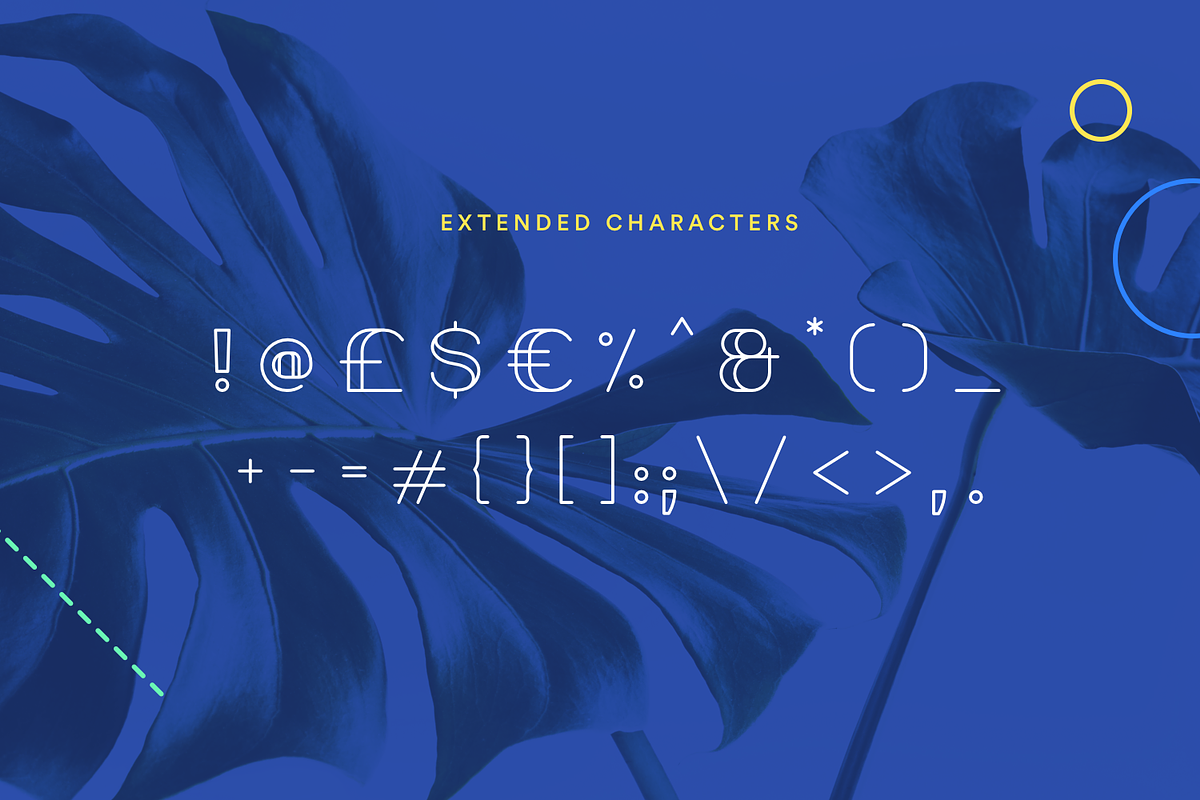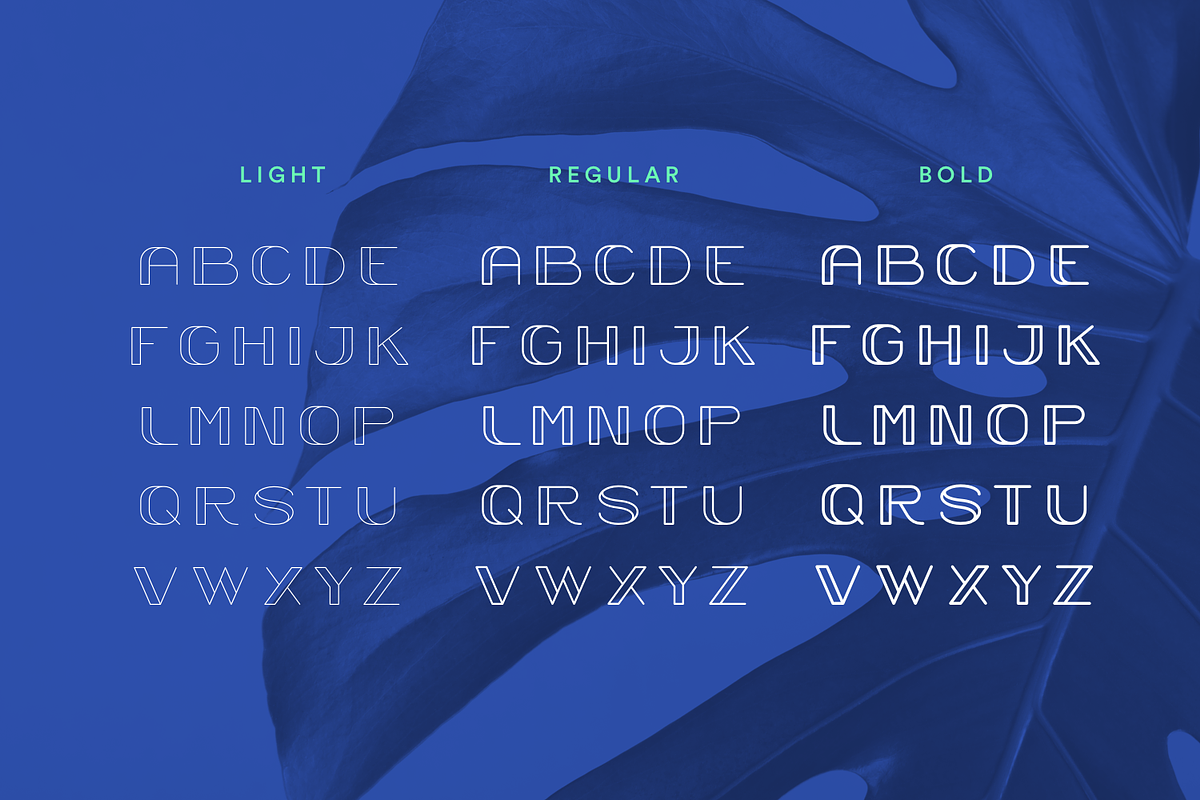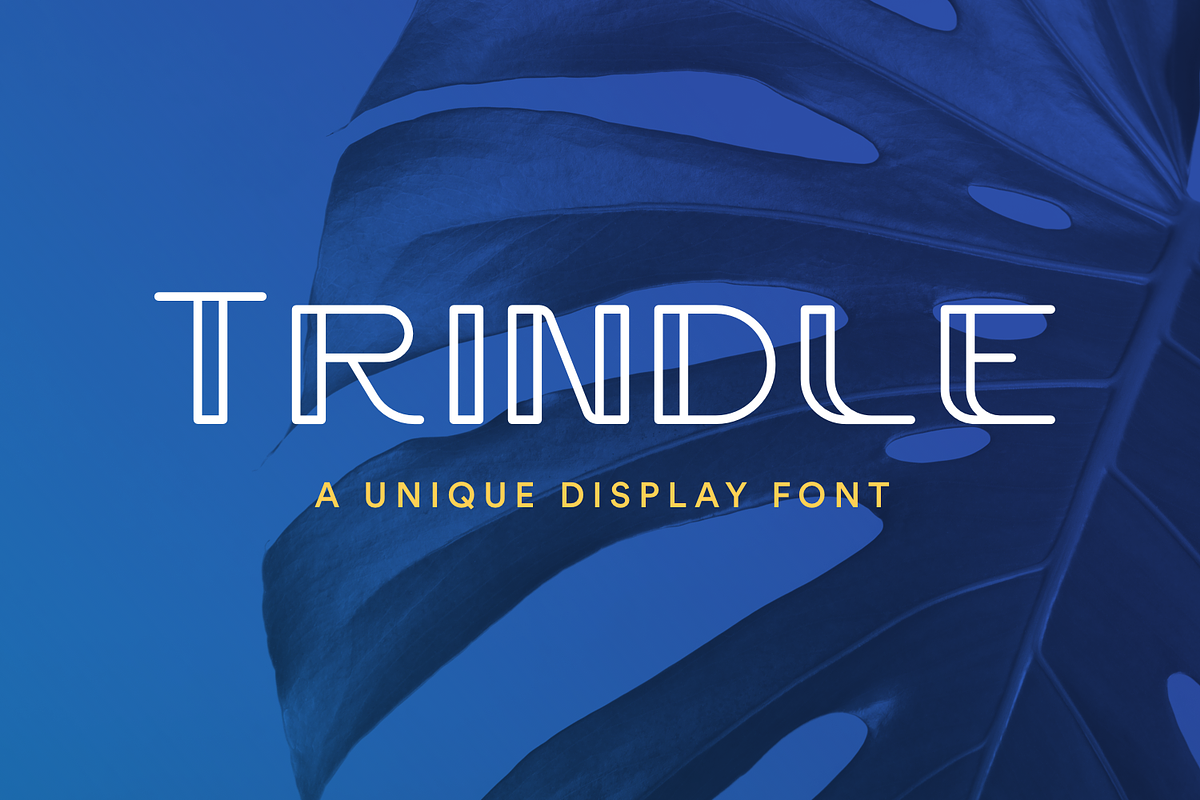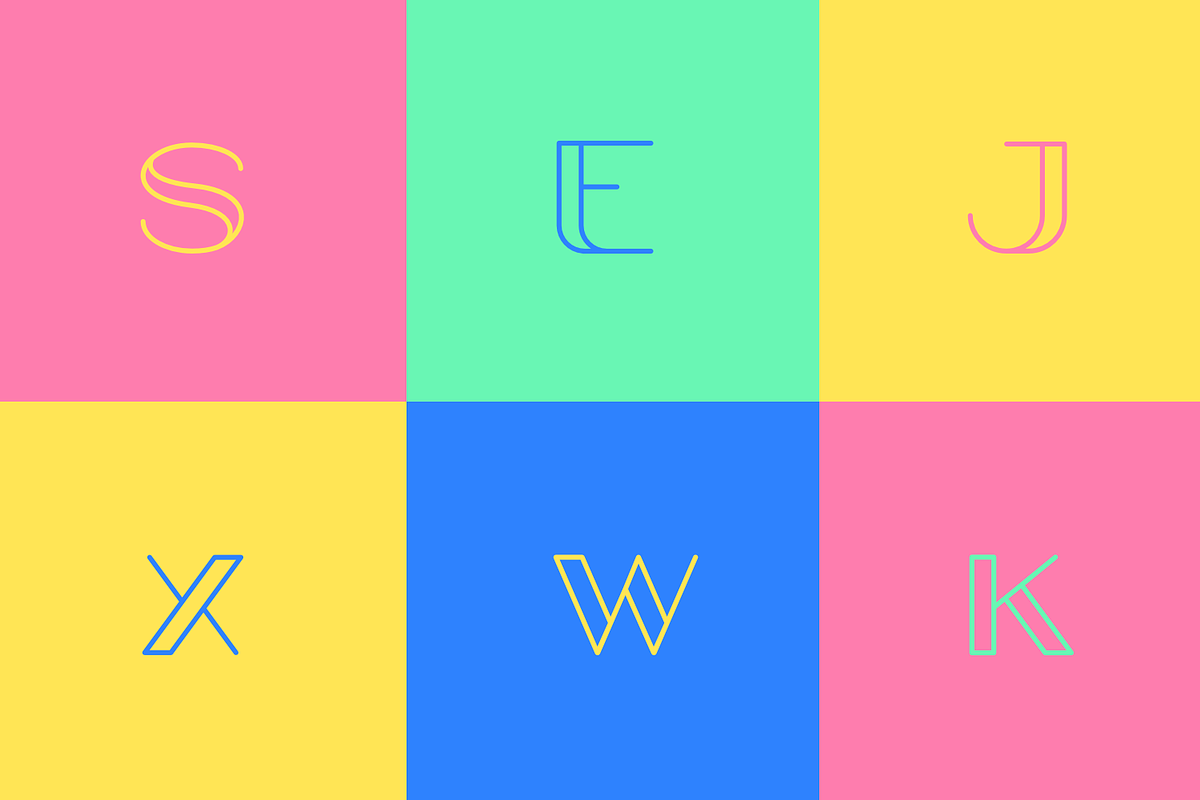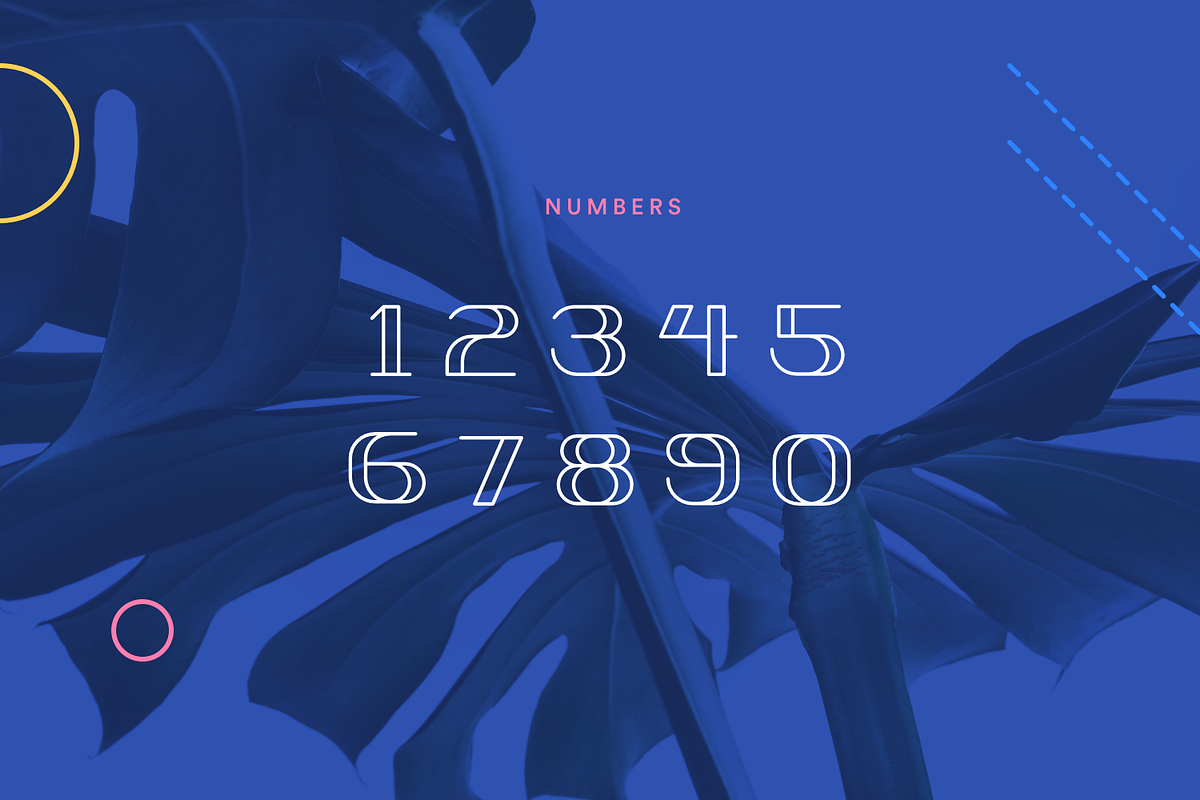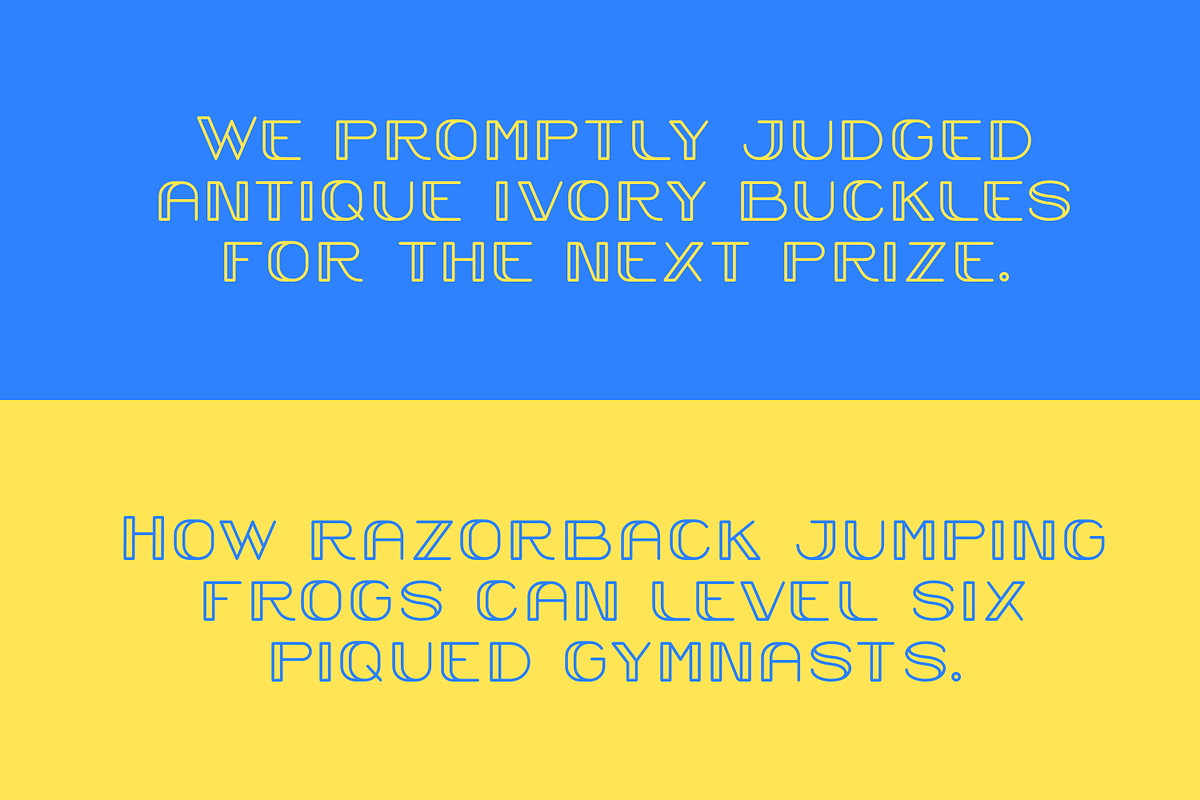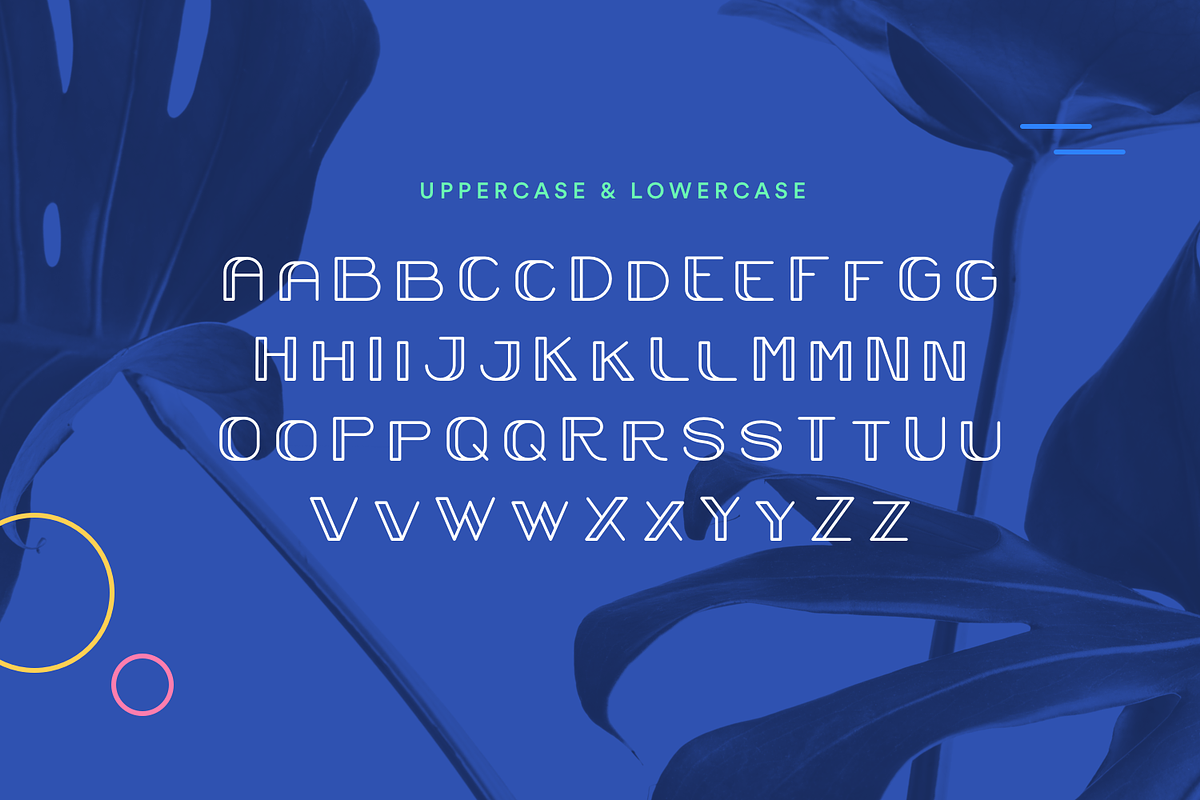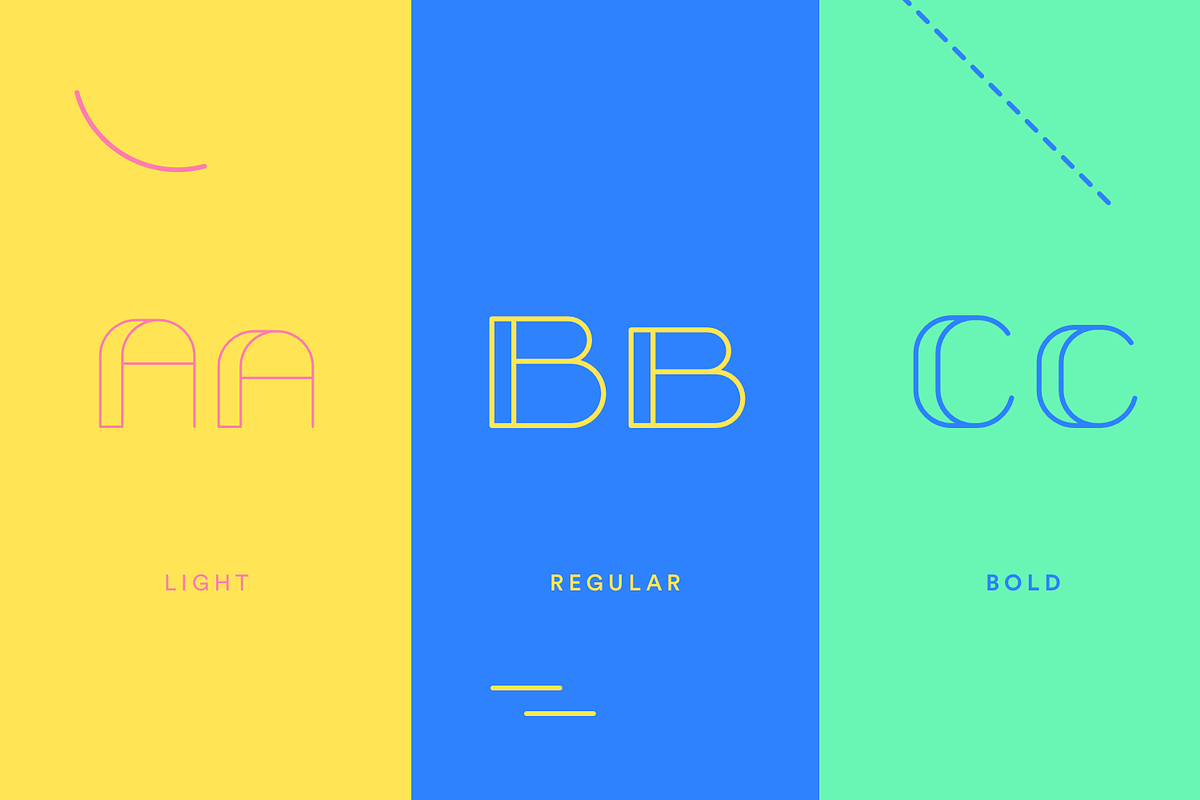
Trindle Sans | Display Font
Trindle Sans - A Unique Display Font
Create unique, gorgeous headlines and elegant designs with an art deco flair. Trindle's contrasting lines and curved shapes give a sleek, elegant look for logos, headings, wedding invitations, quotes, advertisements, and more. Trindle is a versatile typeface that has three different weights: Light, Regular and Bold.